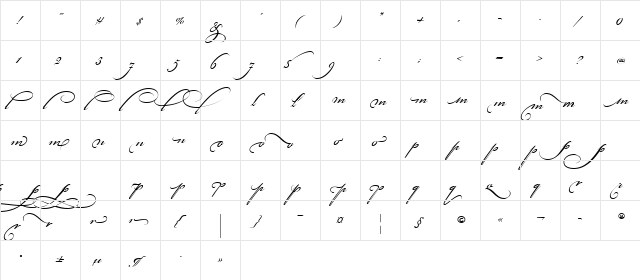
Bickham Script Alt Three Regular
| Foundry | Gophmann A.L. |
| Designer | Gophmann A.L. |
Design Context for Bickham Script Alt Three Typeface
Bickham Script Alt Three brings a calligraphic fluidity to the page — its connecting strokes and expressive curves give it an unmistakably human quality.
Font Pairing: Combine Bickham Script Alt Three with a simple geometric sans for maximum contrast — the tension between flowing curves and clean structure is a classic typographic pairing.
Pro Tip: Pair Bickham Script Alt Three with a clean sans-serif for supporting text. The contrast between fluid script and geometric structure creates an elegant typographic hierarchy.